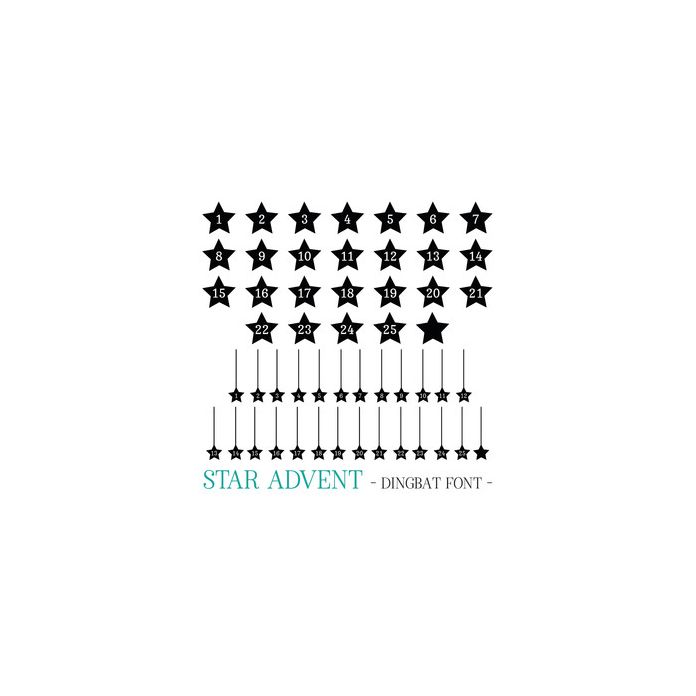
Star Advent Countdown Dingbat Font - with two sets of Numbers to countdown to the big day! All Numbers are allocated to upper (stars) and lower (star drops) case - just type out the alphabet!